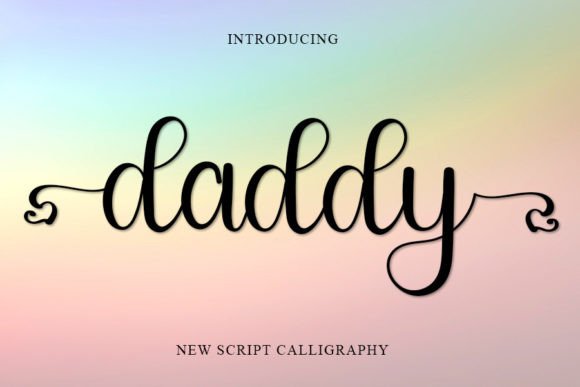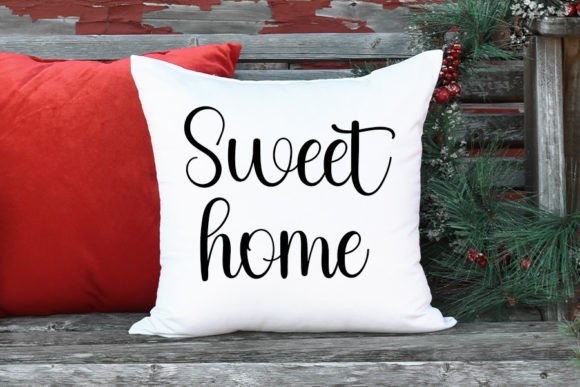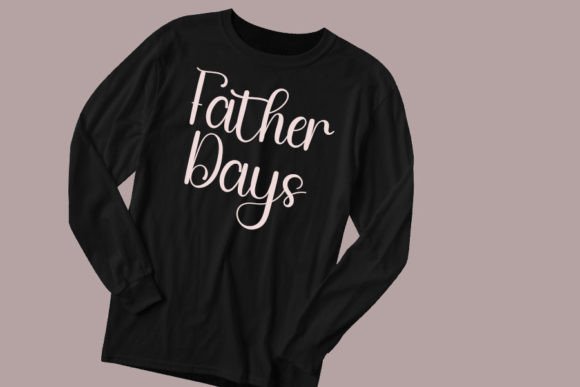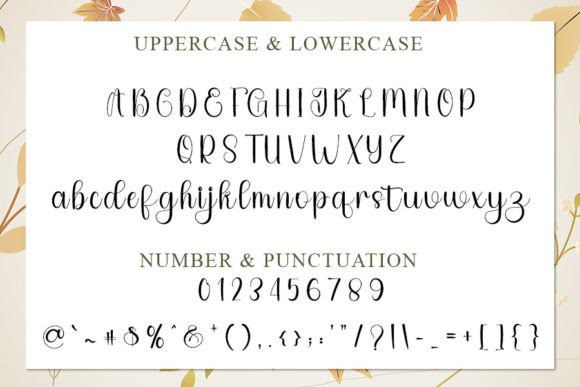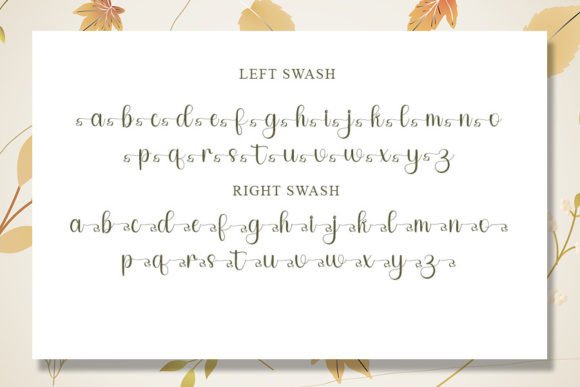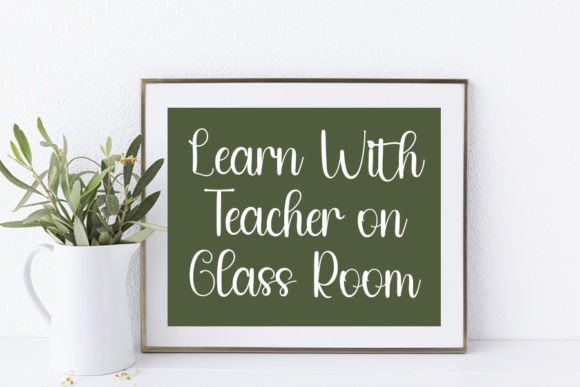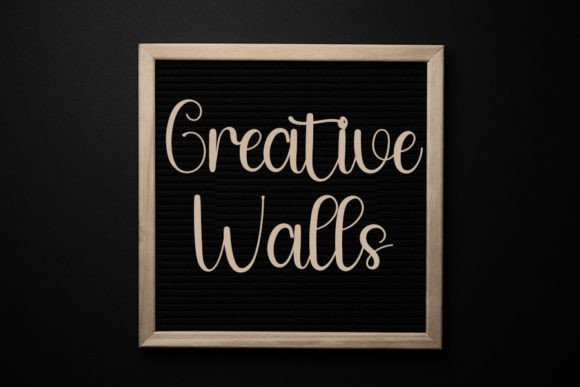
Daddy Font
About Daddy Font
“Daddy” is presented as a beautiful and refined handwritten font, characterized by a classy and modern aesthetic. This versatile font is well-suited for a diverse range of design applications, including logos, branding, invitations, stationery, wedding designs, social media posts, and more.
The beauty and refinement of “Daddy” suggest a font that can bring a touch of elegance to various projects. Its handwritten style imparts a personalized and authentic feel, making it suitable for designs that require a balance of sophistication and modernity.
The mention of its suitability for logos, branding, invitations, and social media posts indicates that “Daddy” is versatile and can adapt to different design contexts. Its classy and modern qualities make it a font of choice for projects that demand a contemporary and refined look.
The PUA encoding is an additional feature that enhances the font’s usability. PUA (Private Use Area) encoding allows easy access to a variety of glyphs and ligatures, providing designers with more creative possibilities and design options.
In summary, “Daddy” is more than just a font; it’s a tool for adding beauty and refinement to your designs. Embrace its classy and modern aesthetic, and leverage its PUA encoding for easy access to a range of creative elements, making it a valuable asset for various design projects.